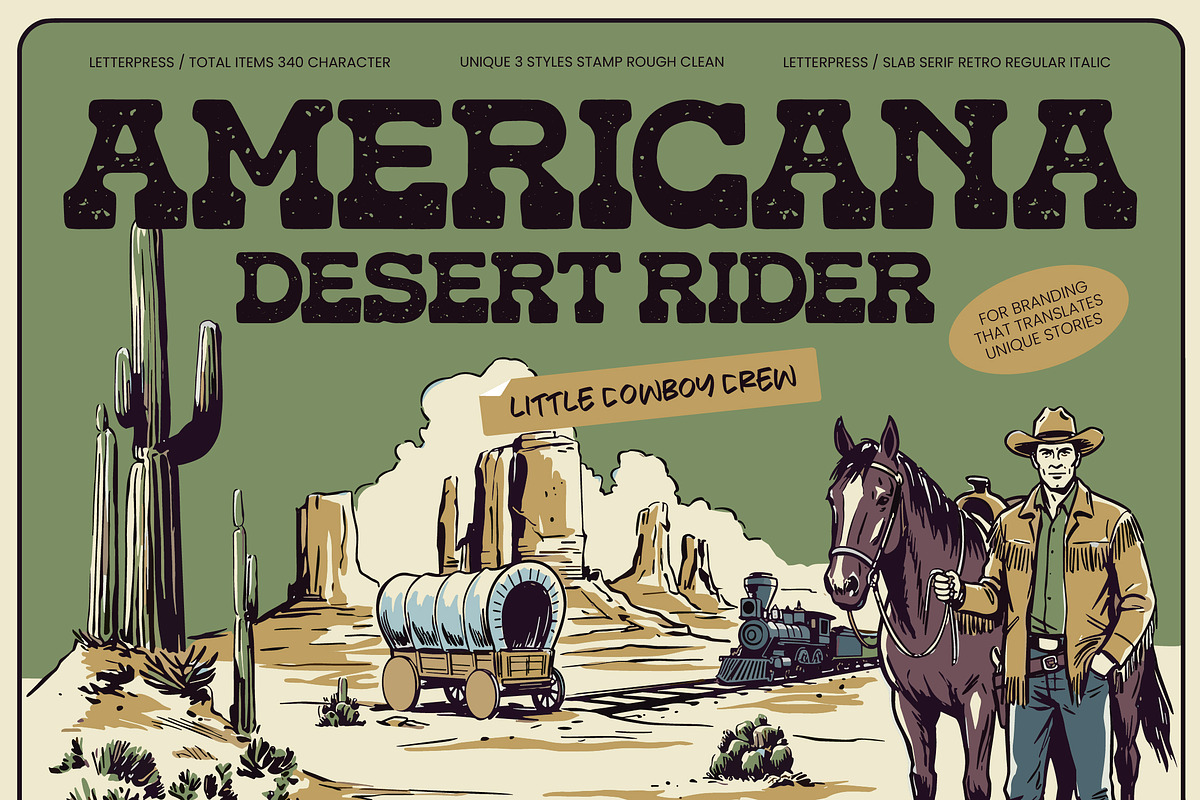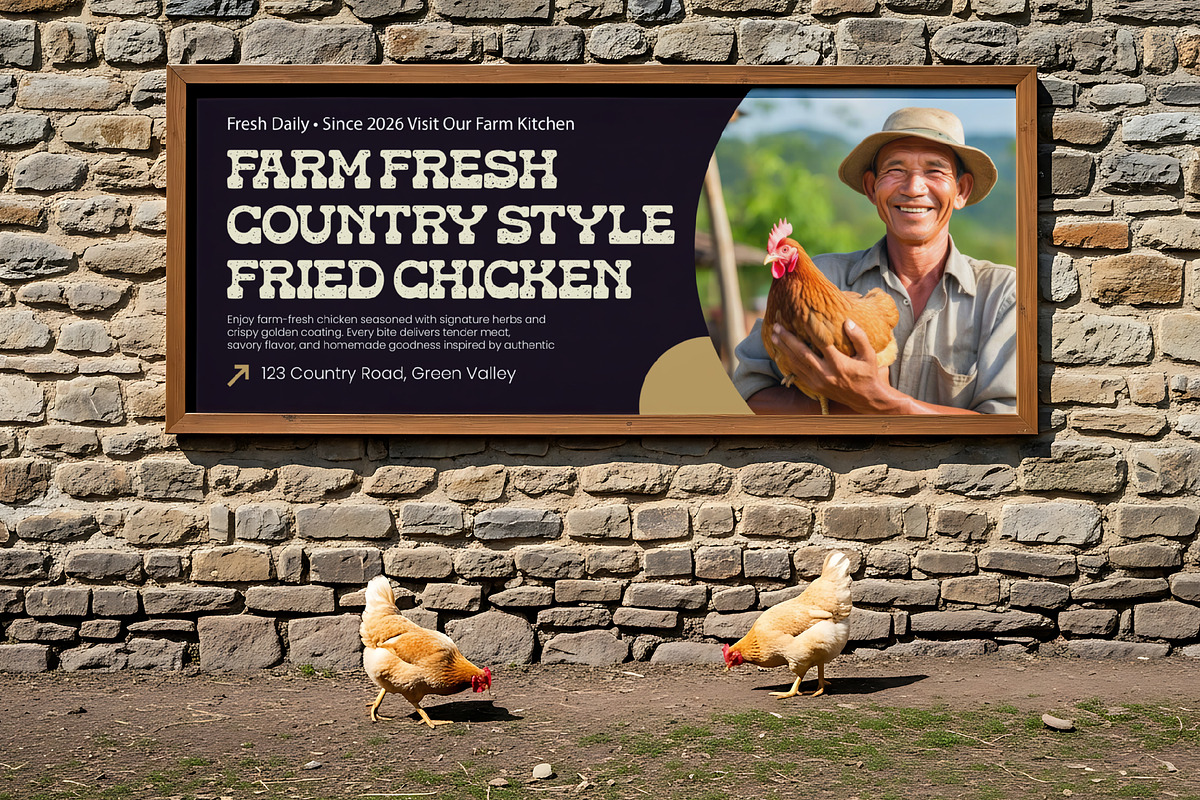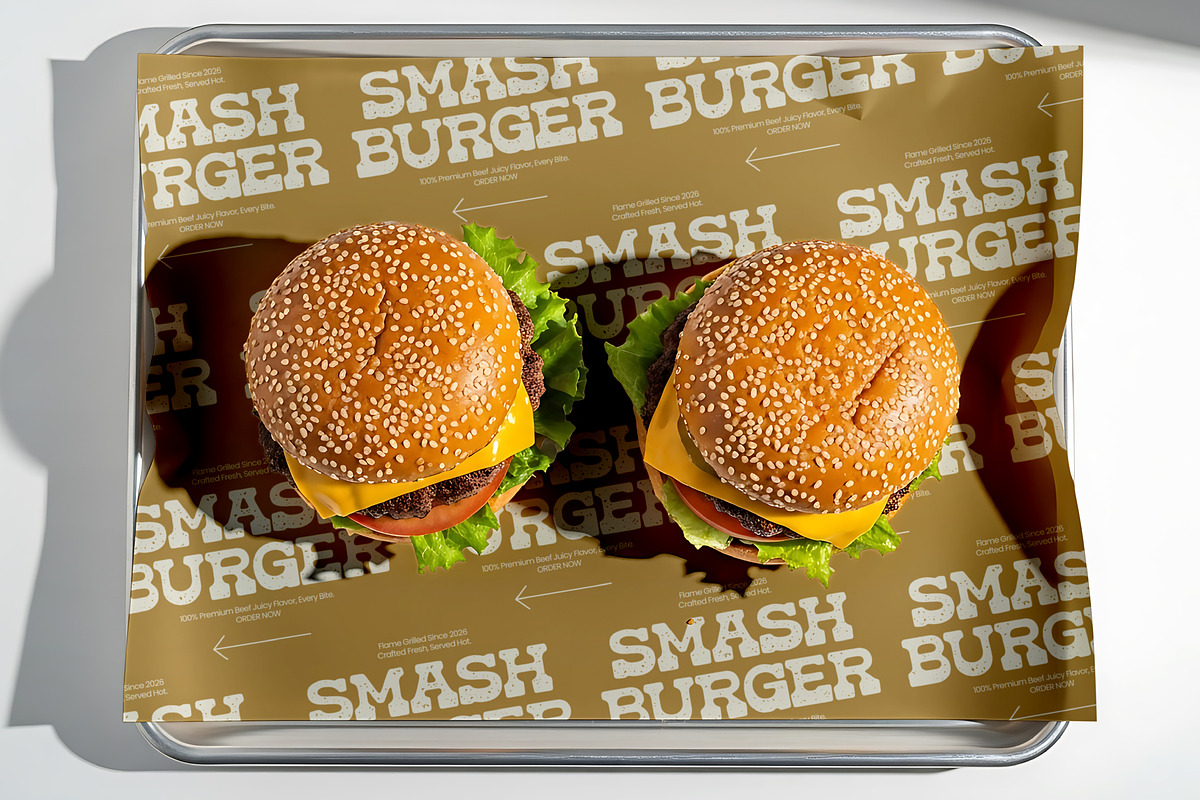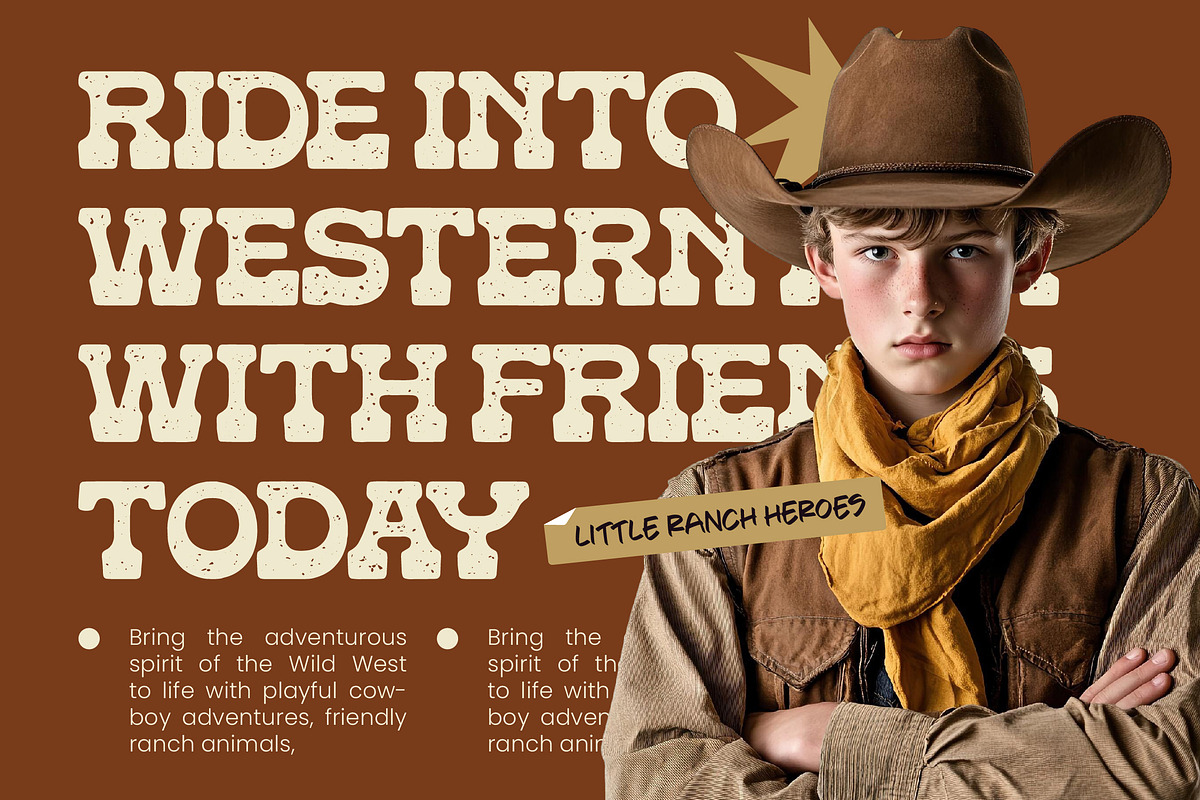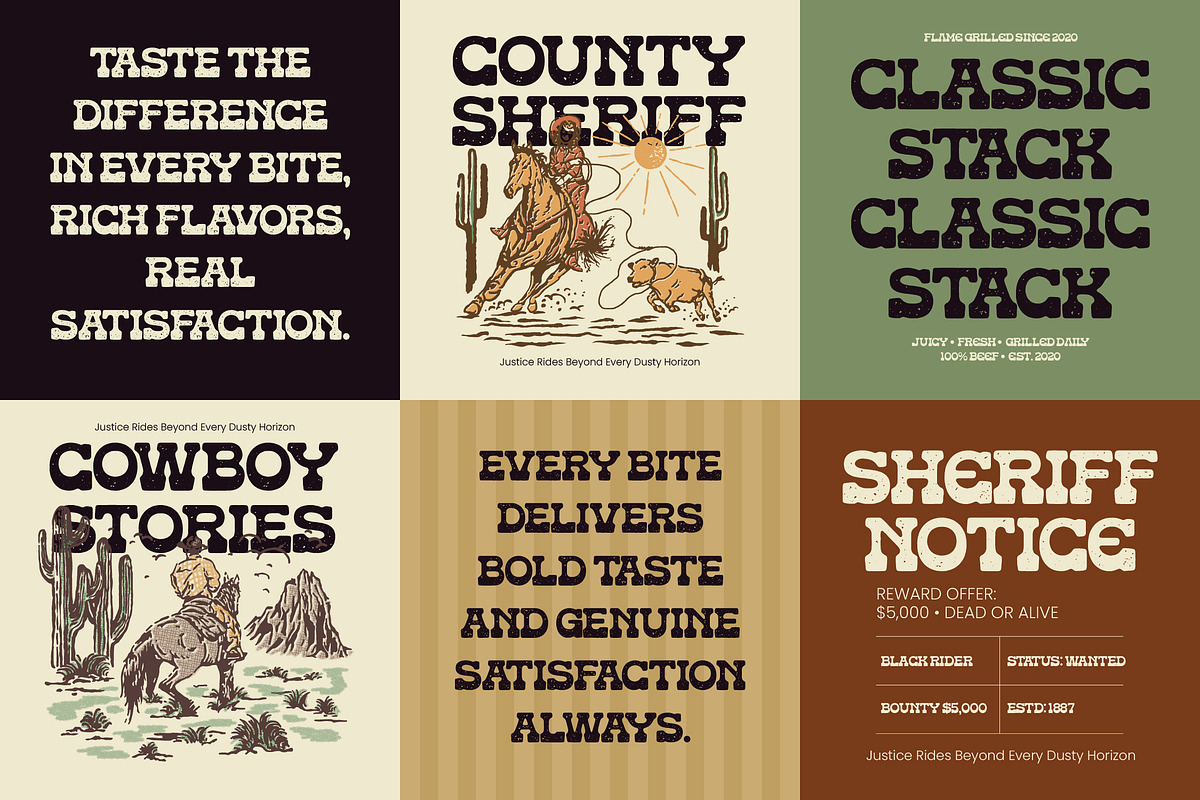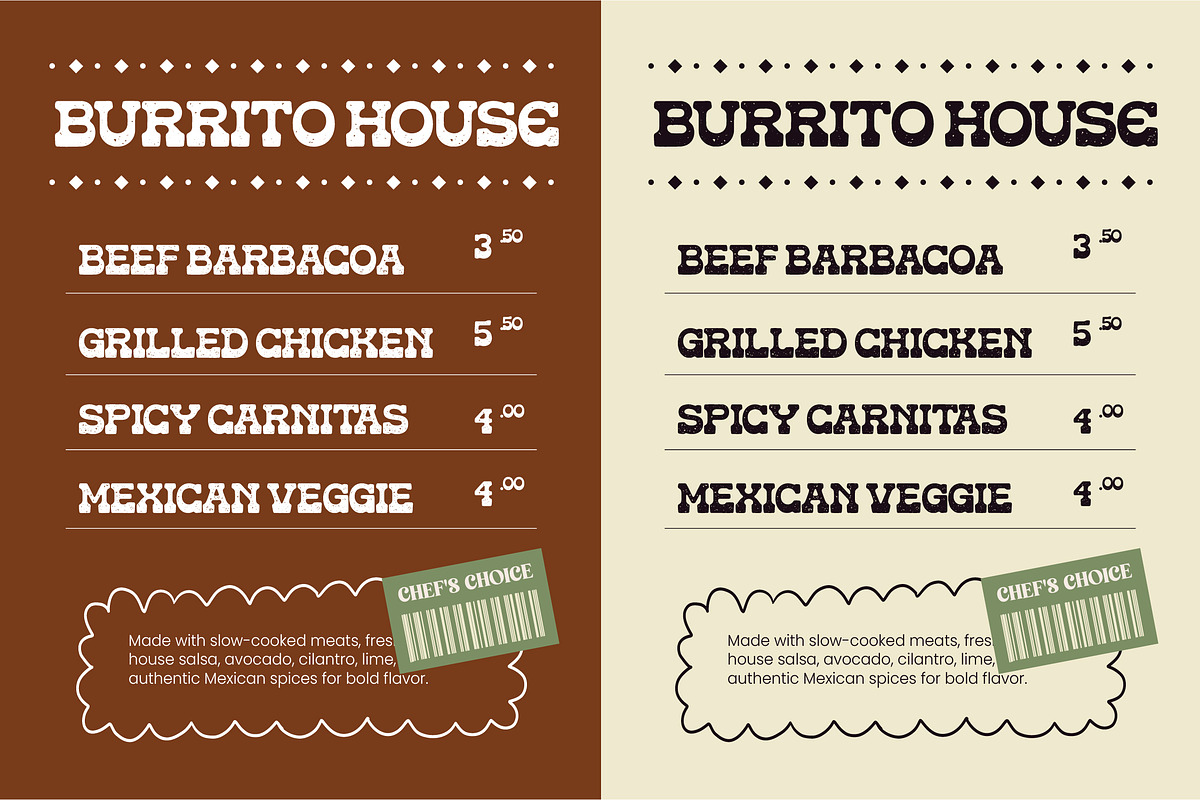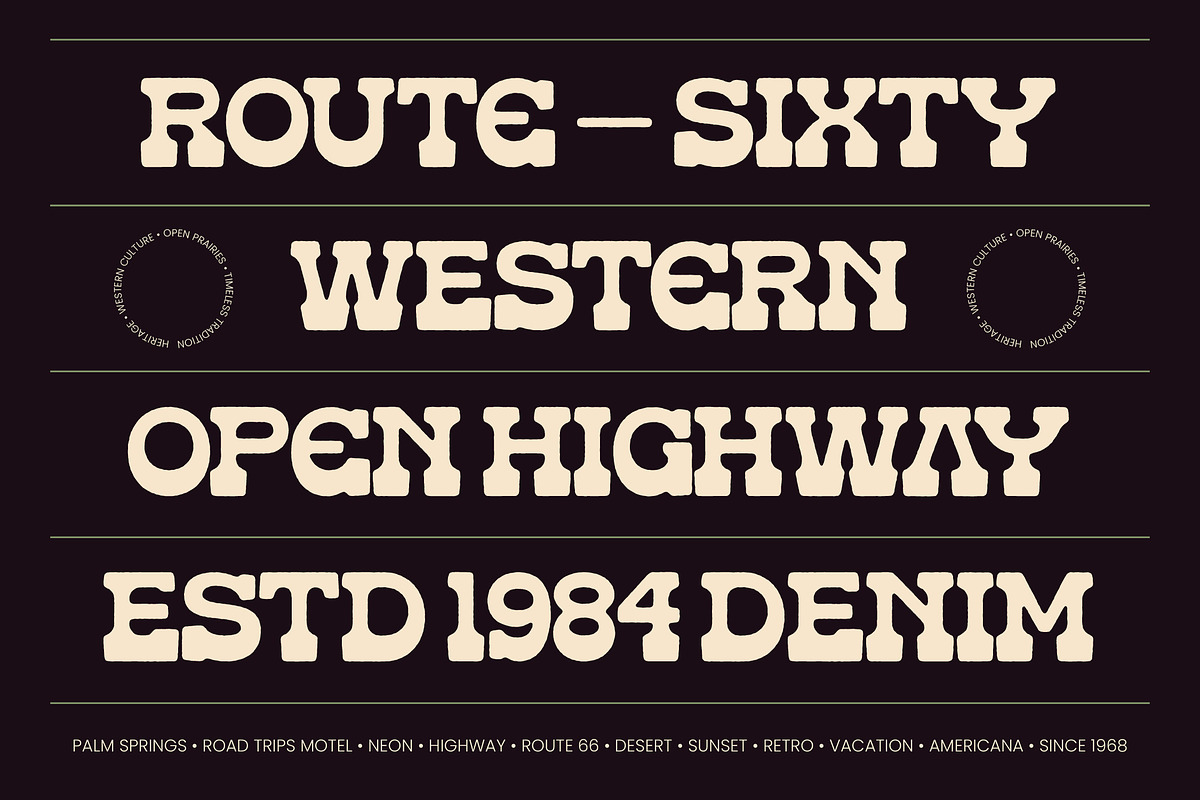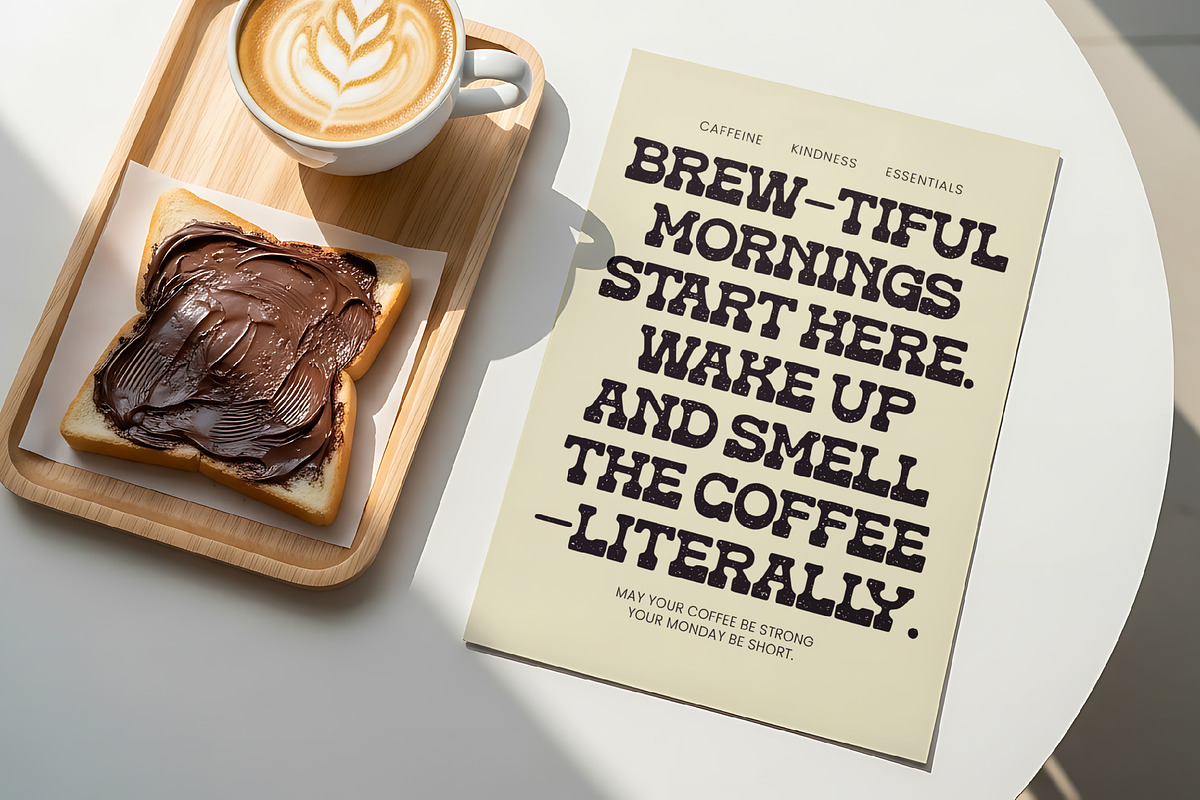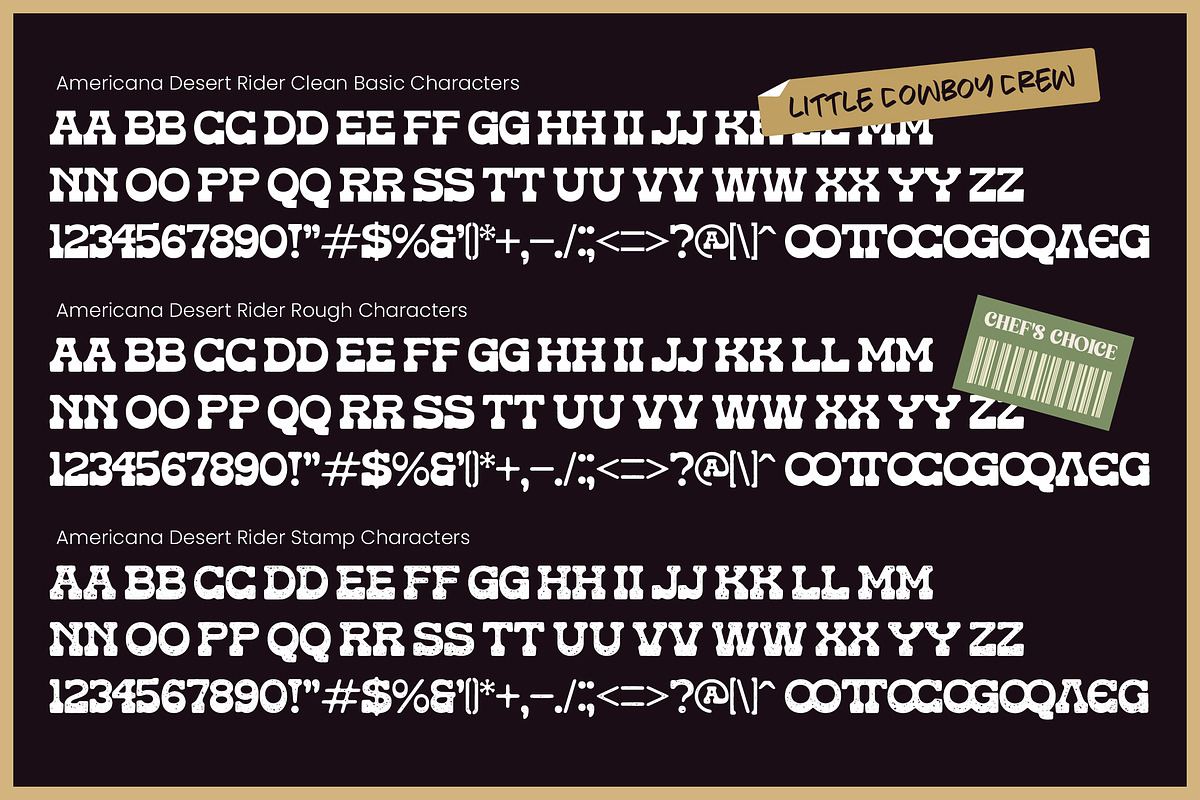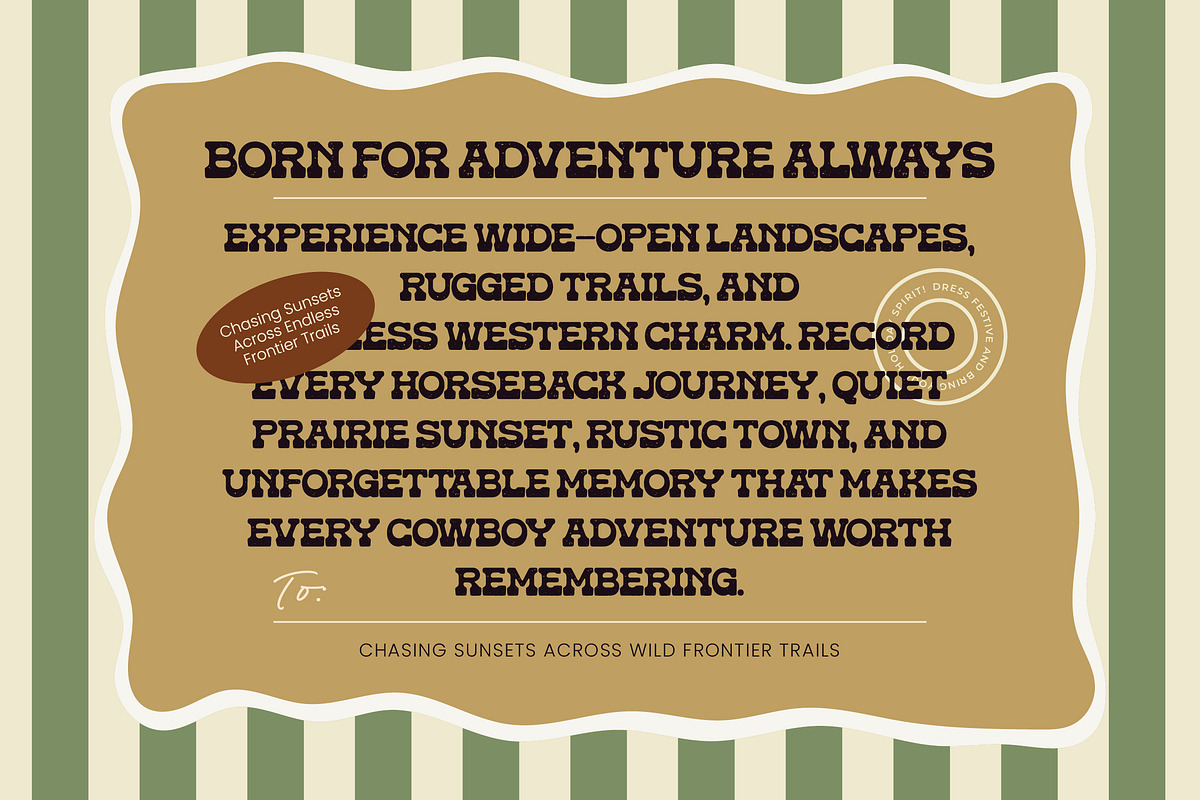
Americana Desert Rider Slab Serif
**Americana Desert Rider - Western Slab Serif , **Capture the essence of the frontier with a typeface that embodies strength and heritage. Americana Desert Rider - Western Slab Serif is a masterfully crafted bold slab serif that brings an authentic letterpress aesthetic to modern design projects. Featuring three unique styles—Stamp, Rough, and Clean—this font family offers a rugged texture and a commanding presence that instantly elevates any visual composition into a high-impact masterpiece.
Expand your creative reach with a toolkit designed for the global stage. With its extensive multilingual support, Americana Desert Rider - Western Slab Serif adapts seamlessly across global markets, making it incredibly versatile for international projects. This versatile functionality ensures that your brand storytelling remains impactful and professional, providing a consistent visual identity for diverse audiences and multilingual applications across various media.
Discover the perfect solution for designs that require a touch of timeless authority. This font is the ideal application for luxury branding, premium packaging, and heritage-inspired apparel design. It is perfect for high-impact editorial layouts, bold signage, and craft brewery marketing. The distressed textures and heavyweight characters make it an essential asset for designers seeking a distinctive western flair that resonates with quality.
Invest in a high-performance typeface that bridges the gap between classic tradition and modern commercial needs. Americana Desert Rider - Western Slab Serif delivers a professional edge that ensures your work stands out in a crowded marketplace. By combining vintage charm with contemporary precision, this premium font is the ultimate choice for creators who demand durability and style in every pixel and print.